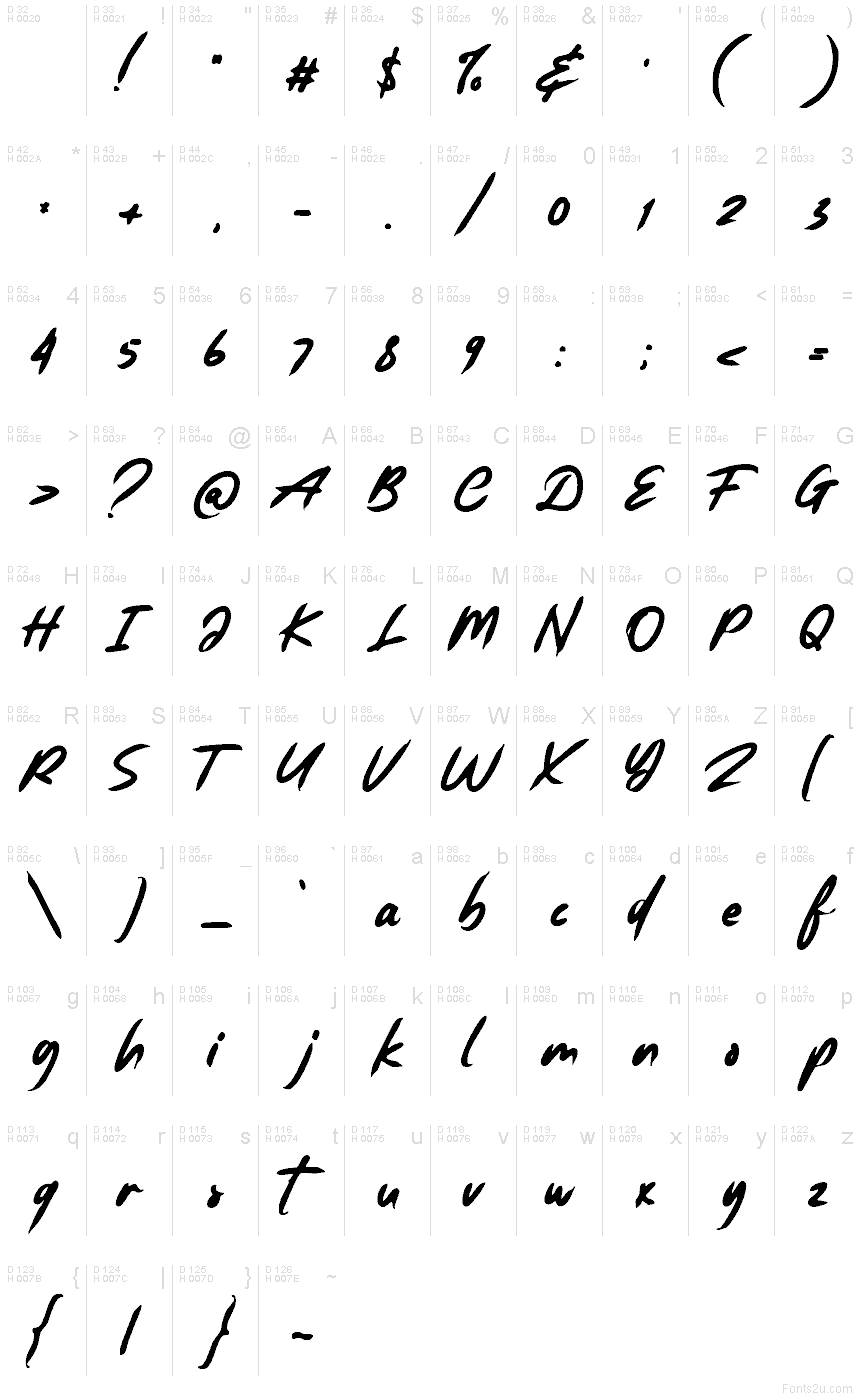
Deguland-Playful
Deguland Playful font by Namara Creative is a free brush script display font. Built in the Deguland family, it stands out with juicy, inky strokes that taper to crisp points, a lively rightward slant, and a natural pressure swing that feels hand-painted, not pre-set. The rhythm is bouncy but readable, with wide swoops and tight joins that add momentum without turning messy.
Using Deguland Playful, headlines snap to attention on packaging, cafe menus, social posts, event invitations, lifestyle branding, merch, and quote graphics. This free font’s dynamic contrast gives short phrases punch and warmth, especially at larger sizes. Pair it with a clean, light sans for body copy, and let Deguland Playful carry the headline flair.